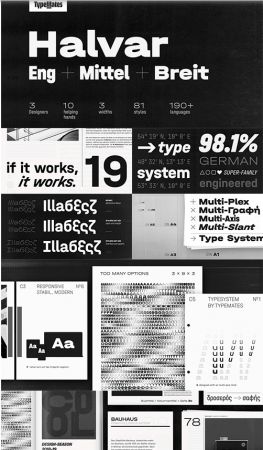
Halvar, a German engineered type system that extends to extremes.
Halvar is not only built to be flexible, but technical.
Apart from the SuperSlanted, all its font styles are multiplexed—a word in one Halvar’s roman or italic widths will occupy the same space
regardless of weight—allowing for fine work in annual reports, interface design, or anywhere space is at a premium and the demands of reflow, rollover and animation need to be considered.
With a character set that includes extended Latin, Greek and Cyrillic and supports more than 190 languages, Halvar’s styles have German names and multilingual ambitions.
Perfect for cross-market branding. To ensure TypeMates’ usual high standards throughout all glyphs, the Cyrillic and Greek letterforms were developed in consultation with native readers.